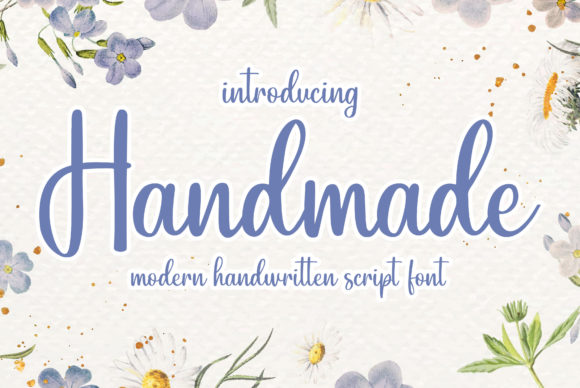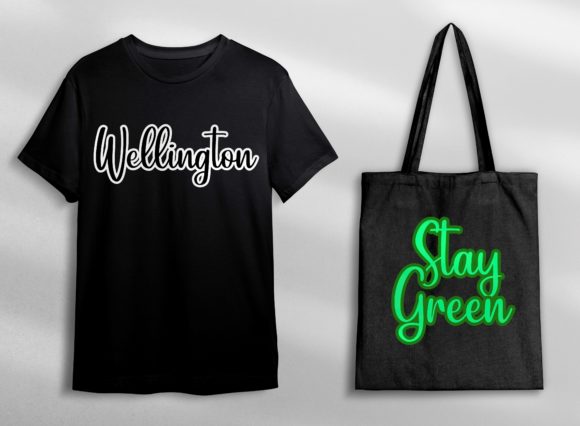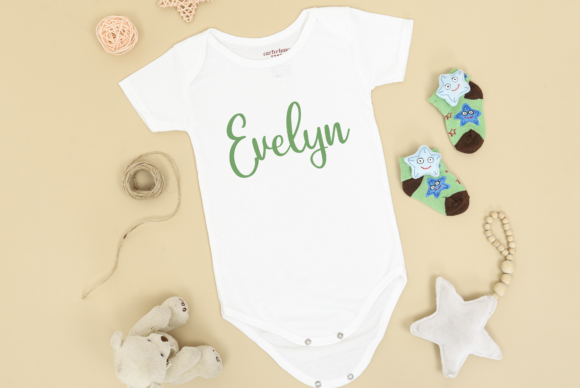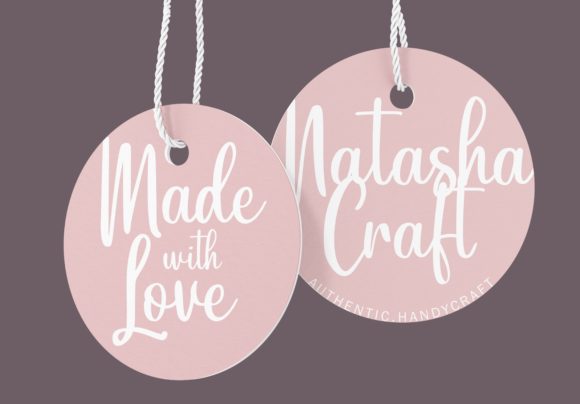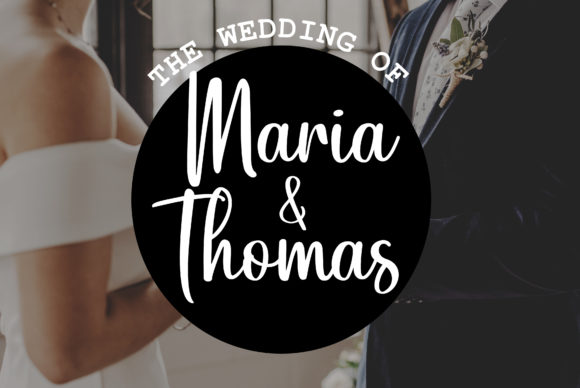
“Handmade” is introduced as a handwriting script font designed to cater to the needs of craft artists and graphic designers, elevating their work into beautiful masterpieces. The font encompasses uppercase and lowercase letters, standard punctuation, and numbers, providing a comprehensive set for creative expression.
Crafted with a handwritten script style, “Handmade” brings a personal and authentic touch to design projects. The organic and flowing strokes of the font emulate the characteristics of hand-drawn lettering, making it suitable for those seeking a sweet and handmade aesthetic in their work.
The inclusion of both uppercase and lowercase letters ensures versatility in typography, allowing designers to create harmonious and balanced compositions. This variety is particularly beneficial in projects where a mix of letterforms is desired for visual interest and creativity.
The font’s suitability for craft artists suggests that it can enhance various handmade creations, adding a unique typographic element to craft-based projects. Whether applied to handmade cards, artisanal products, or other crafted items, “Handmade” aims to contribute to the overall aesthetic appeal of these creations.
For graphic designers, “Handmade” offers a sweet and charming font option for diverse design applications. From branding and packaging to promotional materials and digital graphics, the font’s hand-drawn style can inject warmth and personality into the visual communication of a brand or project.
In summary, “Handmade” stands out as a handwriting script font tailored for craft artists and graphic designers. Its inclusion of uppercase, lowercase, standard punctuation, and numbers provides a versatile toolkit for creative expression. With its sweet and handmade aesthetic, the font aims to bring a touch of authenticity and charm to a wide range of design projects.